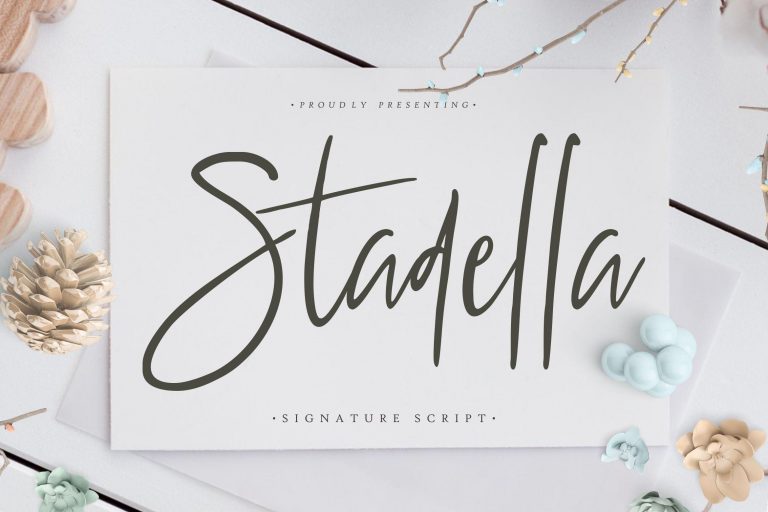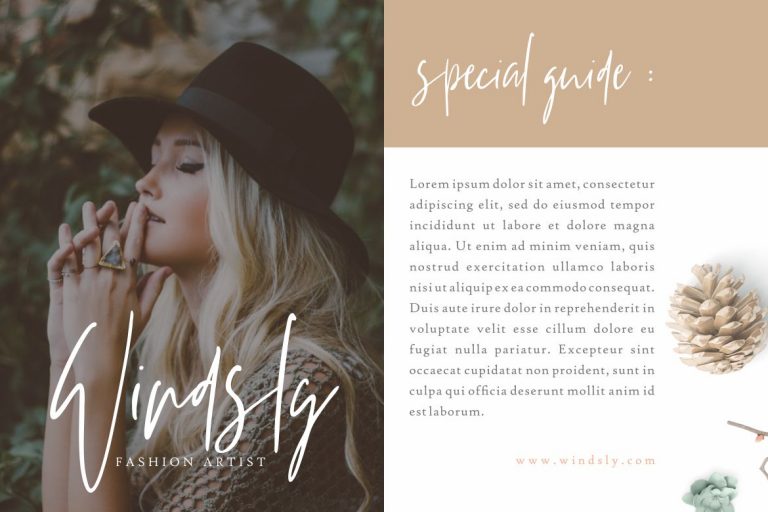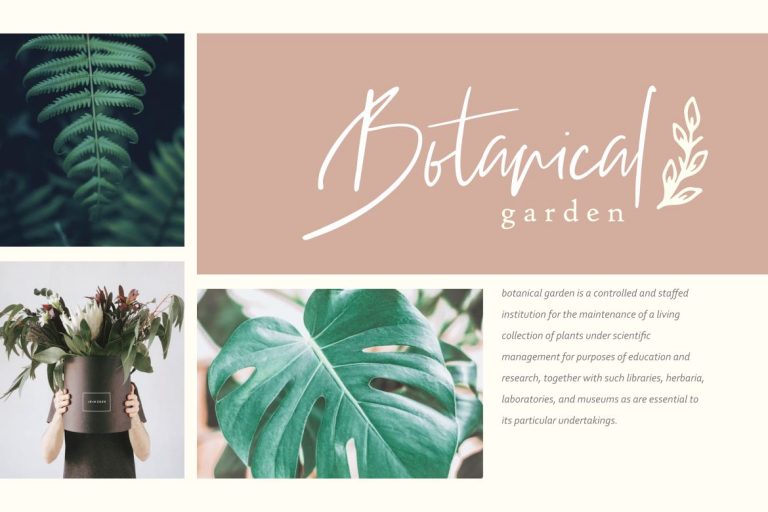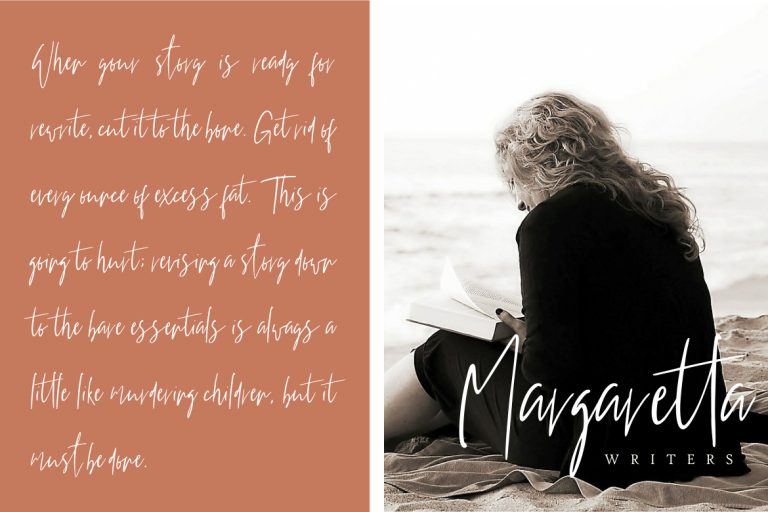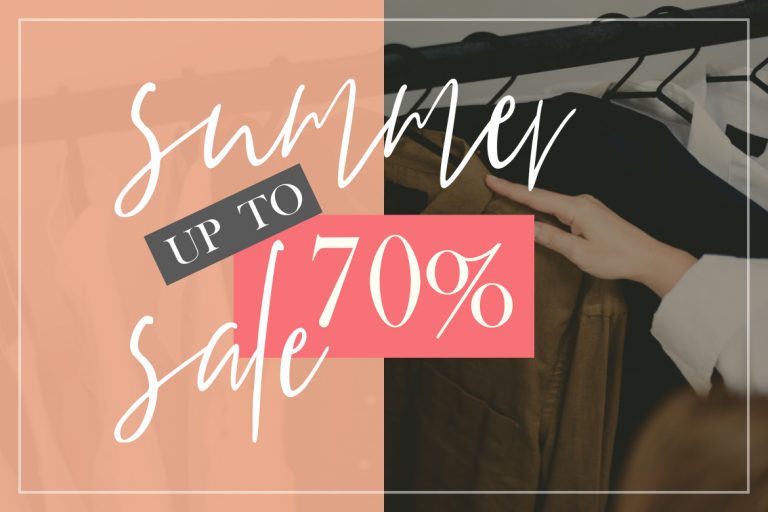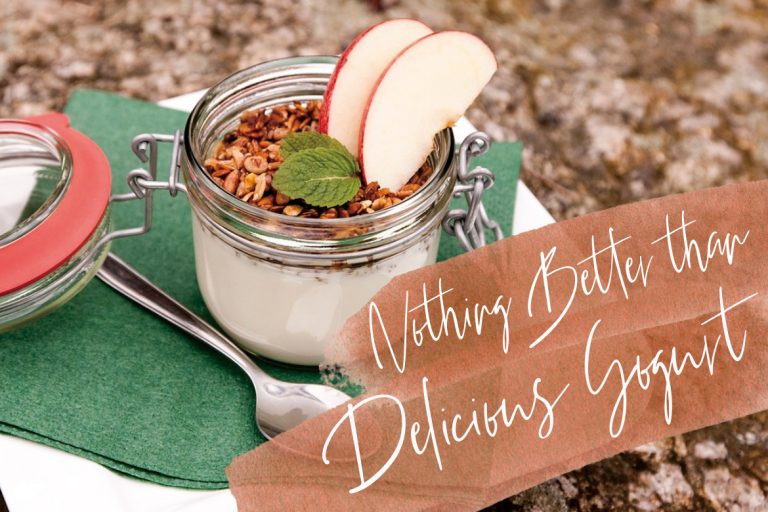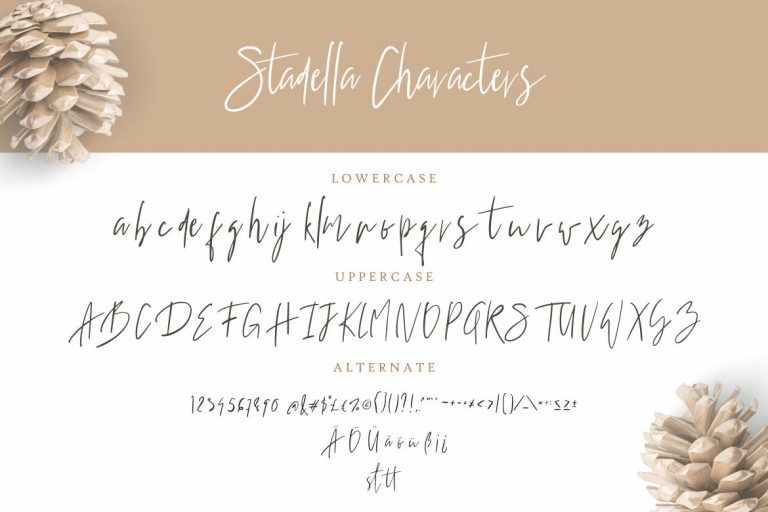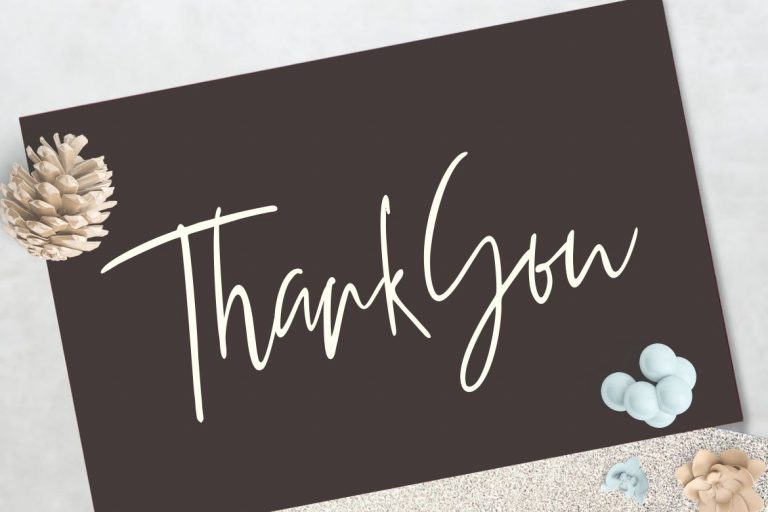
Stadella Signature Script
Stadella Signature Script is a modern signature script font with free-flowing hand drawn make this font perfect for your personal branding and any awesome project.
Stadella Signature Script is perfect for branding projects, logo, wedding designs, social media posts, advertisements, product packaging, product designs, label, photography, watermark, invitation, stationery and any projects that need handwriting taste.